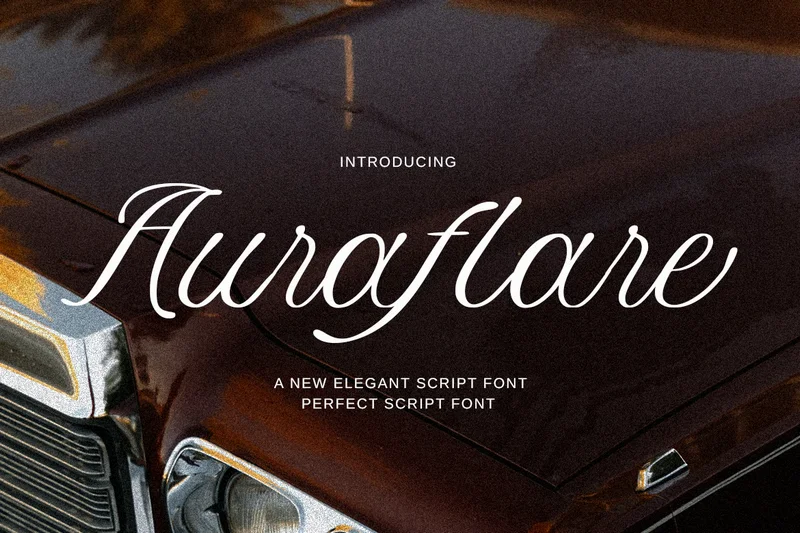
Auraflare – Elegant Script Font
Auraflare is an elegant script typeface that combines modern sophistication with timeless charm. Designed to bring refinement and style to your creative projects, this typeface delivers a perfect balance between luxury and readability. Auraflare works beautifully for branding, invitations, packaging, social media visuals, or editorial use—making every design stand out with a graceful and professional tone. With its smooth letterforms and consistent flow, Auraflare evokes elegance and confidence in every curve, enhancing your work with a touch of classic allure.
Uppercase Letters
Alternate Character
Unique Hand-Drawn Style